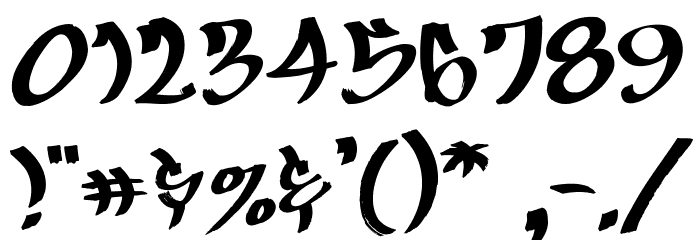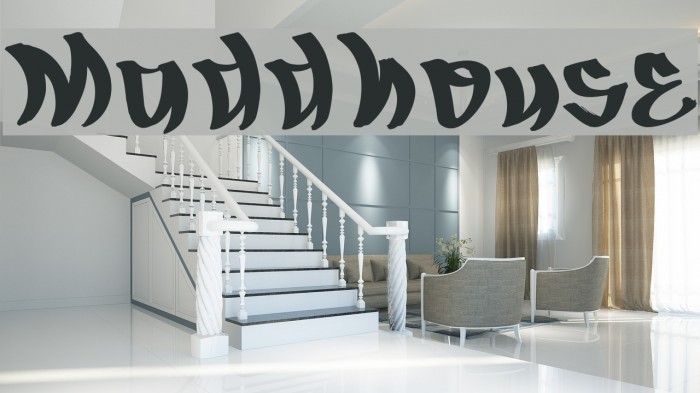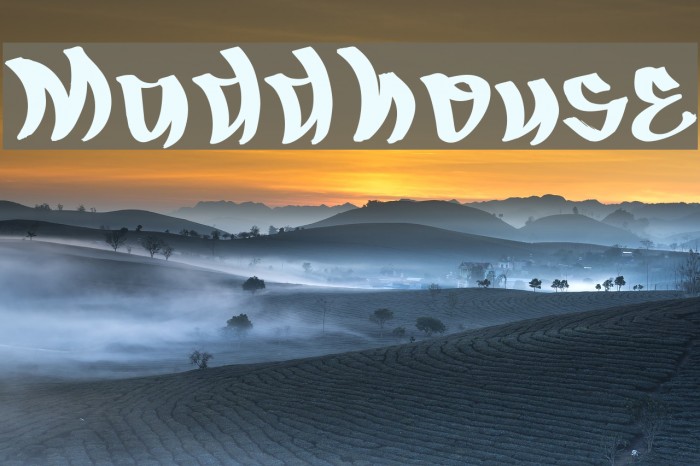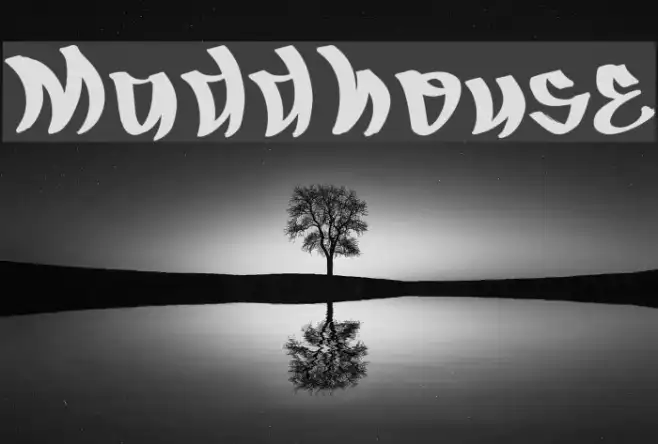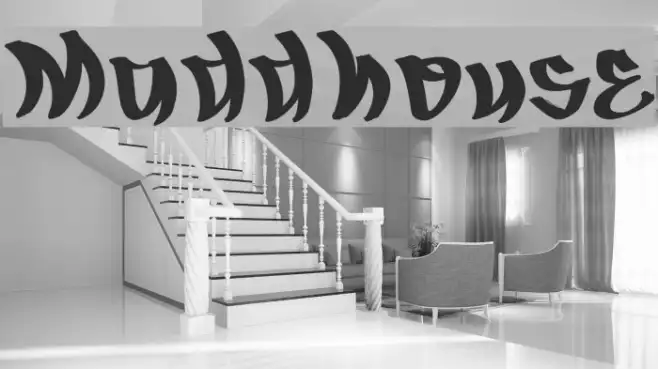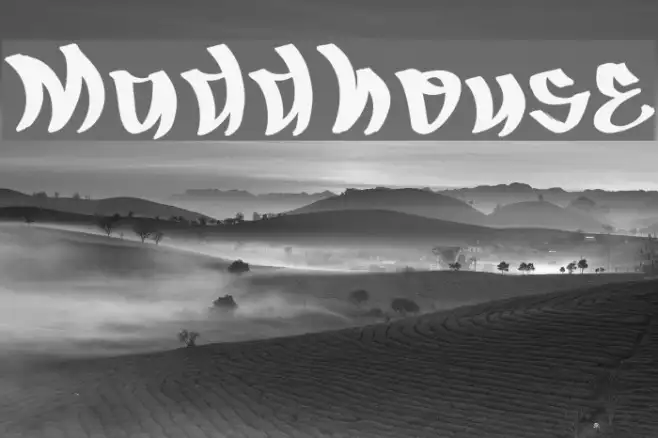
Maddhouse Font
This font features a bold and dynamic script style with a strong presence. The characters are designed with a brush-like appearance, giving them an artistic and expressive feel. The uppercase letters are particularly striking, with exaggerated curves and flourishes that add a sense of movement and energy. The lowercase letters maintain the same fluidity, creating a cohesive look throughout the typeface. Numbers and special characters are equally bold, ensuring consistency across all elements. The overall design is both modern and decorative, making it suitable for projects that require a touch of flair and creativity.
A bold, brush-style script font with dynamic curves and artistic flair.
- Proposed Projects: Ideal for branding, posters, event invitations, and creative projects that require a bold statement.
- Overall Style: Modern, Decorative